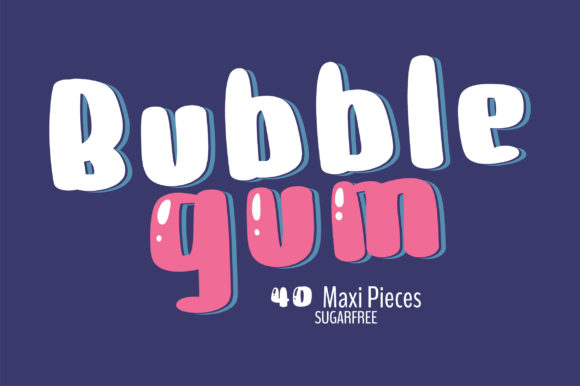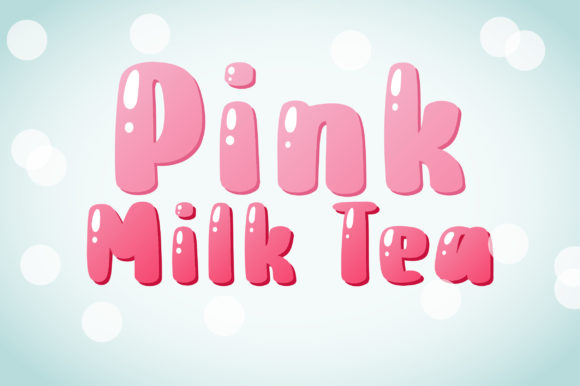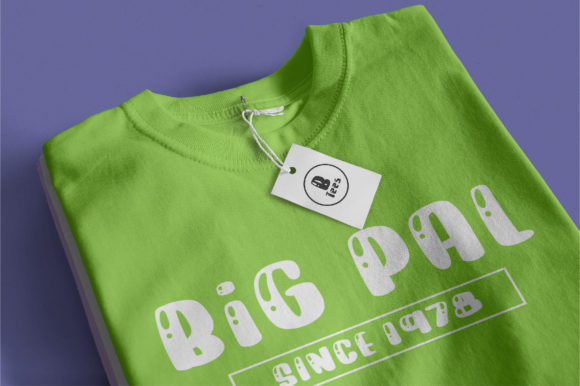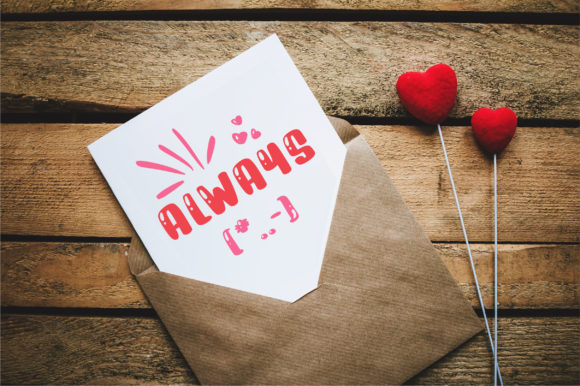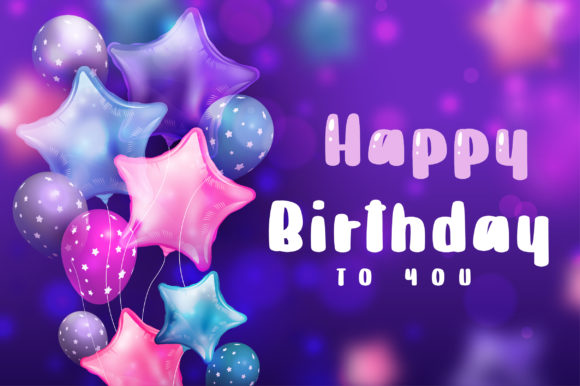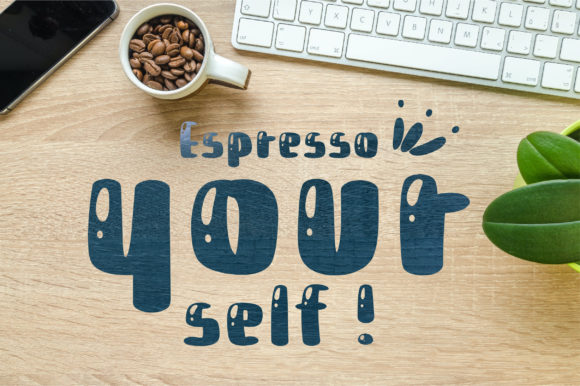
Brewing Up Creativity: Introducing Bubble Milk Tea Font
As designers, we’ve all been there – staring at a blank page, searching for the perfect font to bring our ideas to life. The moment of discovery, when you stumble upon that one font that makes everything click, is pure magic. And that’s exactly what we’re excited to share with you today – the Bubble Milk Tea Font, a cheerful and friendly display font that’s sure to elevate your design projects to new heights.
Bubble Milk Tea Font is more than just a font – it’s a way to infuse your designs with personality and charm. Whether you’re creating branding, headings, invitations, logos, labels, or anything in between, this font is the perfect companion to help you brew up something truly special. And for designers, it’s a valuable addition to their toolkit, offering endless possibilities for creativity and self-expression.
Bubble Milk Tea Font Key Features
- Font Family: A unique, custom-designed font family inspired by the aesthetic of bubble milk tea shops.
- Unique Characteristics: Features a distinctive, hand-drawn style with bold lines, rounded edges, and a playful feel, perfect for capturing the whimsy and charm of bubble milk tea culture.
Bubble Milk Tea Font Review
Overall, I think the Bubble Milk Tea Font is a cute and playful font that could be perfect for certain design projects. Here’s what I like about it: ✨
- Fun and quirky design: The font has a unique, hand-drawn feel that’s perfect for adding a touch of whimsy to your designs.
- Customizable: The font comes with a range of styles and variations that can be used to create different moods and atmospheres.
- Legible: Despite its playful design, the font is still easy to read and understand, making it a great choice for body text.
However, I do have some reservations: ⚠️
- Limited scalability: While the font looks great at larger sizes, it can become blurry and difficult to read at smaller sizes.
- Not suitable for formal designs: The font’s playful design may not be suitable for more formal or professional designs, such as business reports or academic papers.
Overall, I think the Bubble Milk Tea Font is a fun and versatile font that can add a touch of personality to your designs. However, it may not be the best choice for every project, and you should consider its limitations before using it.
The Bubble Milk Tea Font is ideal for use in food-related designs, such as menus, labels, and packaging. It can also be used in social media graphics, advertisements, and marketing materials to add a playful and eye-catching touch.
To get the most out of the Bubble Milk Tea Font, use it in conjunction with other design elements that evoke a similar aesthetic, such as bright colors and playful graphics. Experiment with different font sizes, colors, and styles to create a unique and visually appealing design.